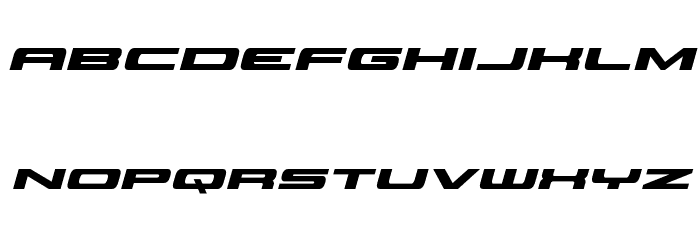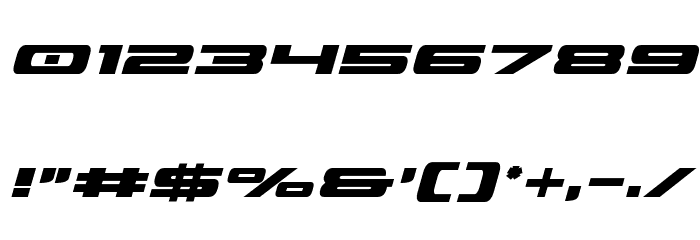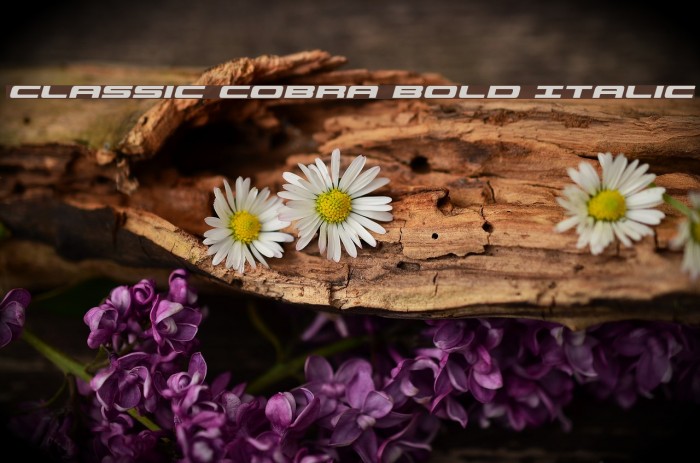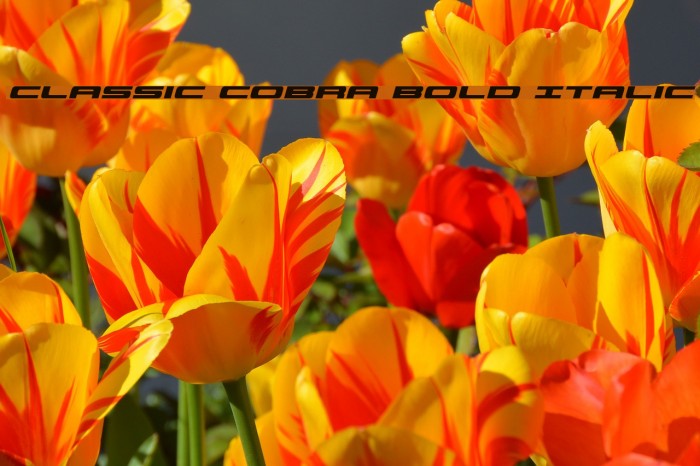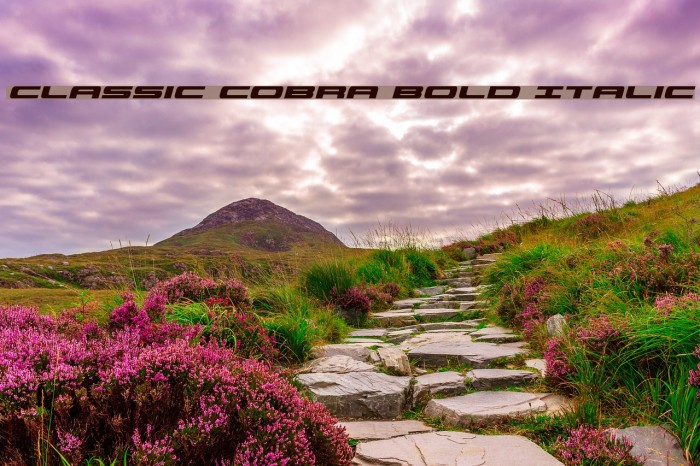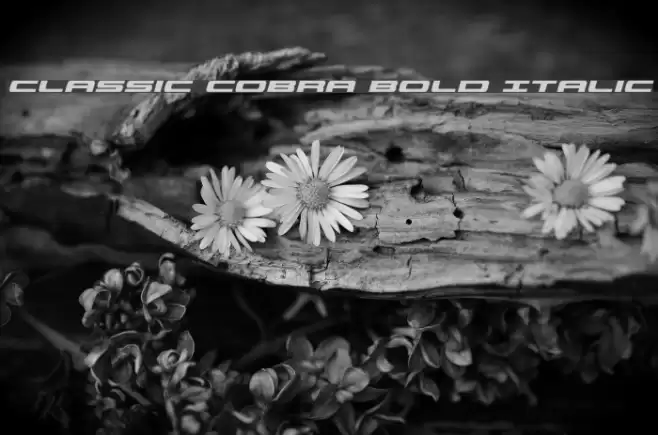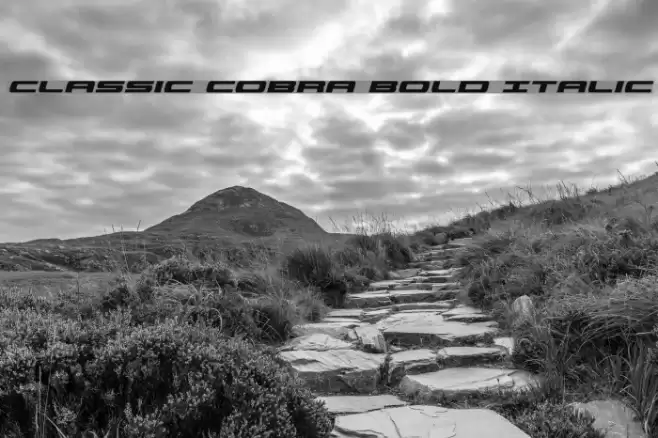
Classic Cobra Bold Italic Font
This font features a bold and italicized style with a modern, sleek appearance. The characters are slightly slanted, giving a sense of motion and dynamism. The strokes are thick and consistent, providing a strong visual impact. The design is clean and geometric, with sharp angles and a futuristic aesthetic. The spacing between characters is tight, enhancing the compact and cohesive look. This font is ideal for projects that require a bold statement, such as branding, advertising, or headlines.
A bold, italicized font with a modern, dynamic style.
- Proposed Projects: Ideal for branding, advertising, headlines, and any project needing a strong, modern look.
- Character Spacing: Tight
- Use Case: Headlines, Logos, Branding